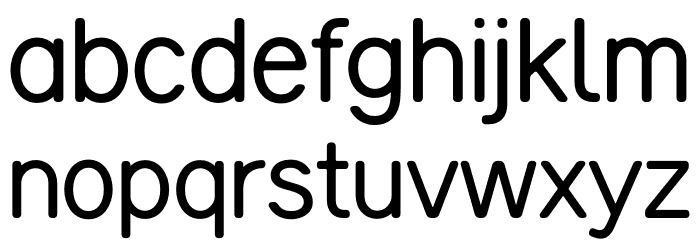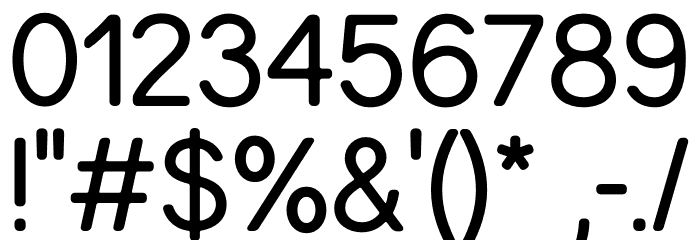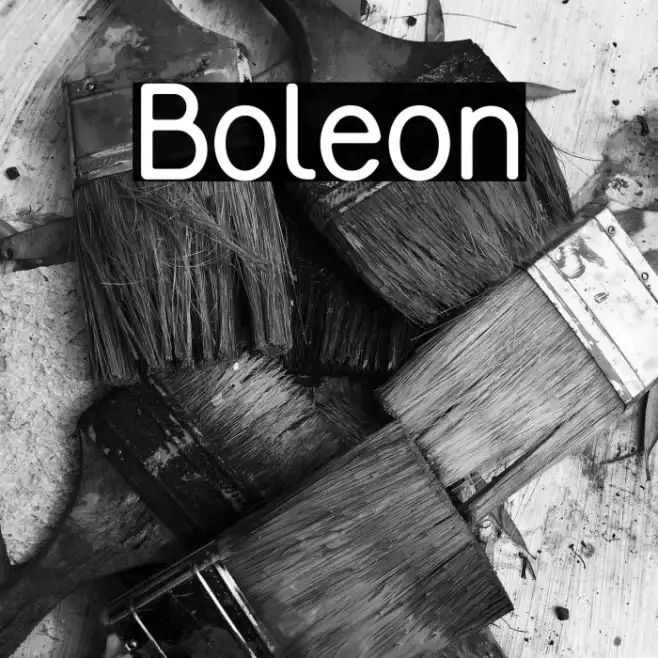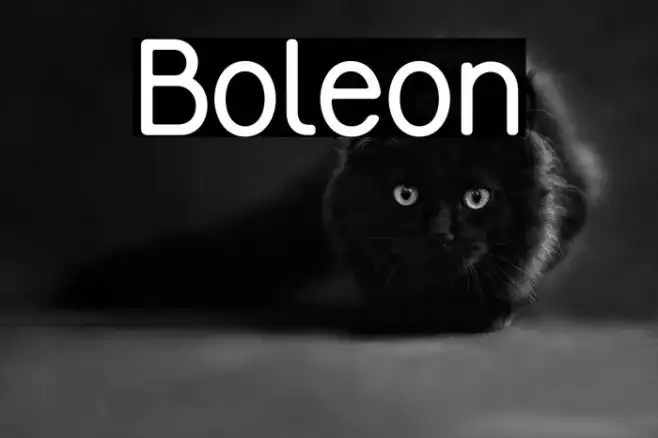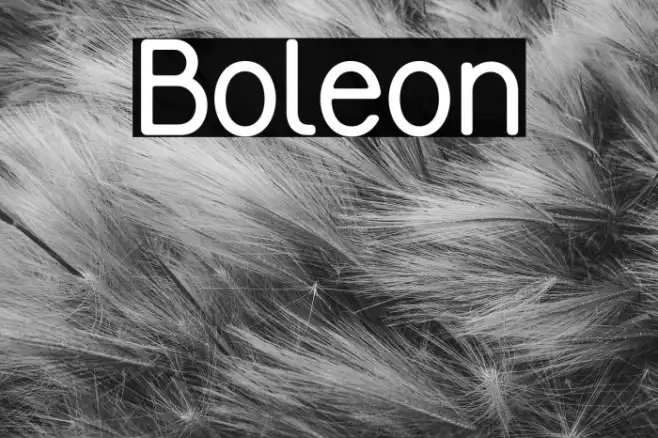
Boleon Font
This font features a clean and modern sans-serif design, characterized by its rounded edges and uniform stroke width. The letters are well-proportioned, offering a harmonious balance between height and width. Its simplicity and clarity make it highly legible, suitable for both digital and print media. The numerals and special characters maintain the same design ethos, ensuring consistency across all elements. This font's straightforward style makes it versatile for various applications, from branding to user interfaces.
A modern, rounded sans-serif font with uniform strokes and high legibility.
- Proposed Projects: Ideal for branding, web design, mobile apps, and corporate communications.